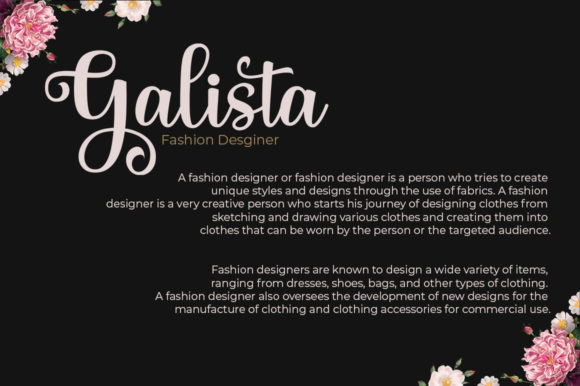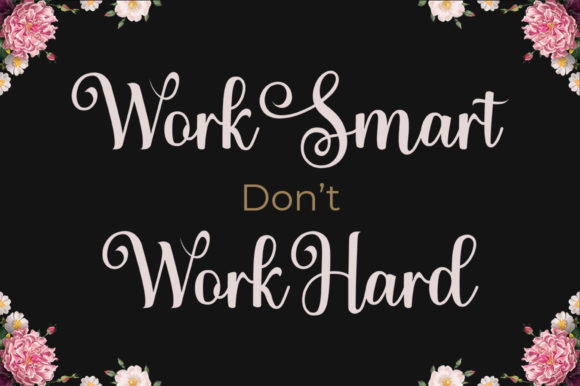
Saturday Garden Font
db-ku.com - Script & Handwritten -- Saturday Garden is a soft and sweet calligraphic typeface, with characters dancing along the baseline. It has a casual and elegant touch.